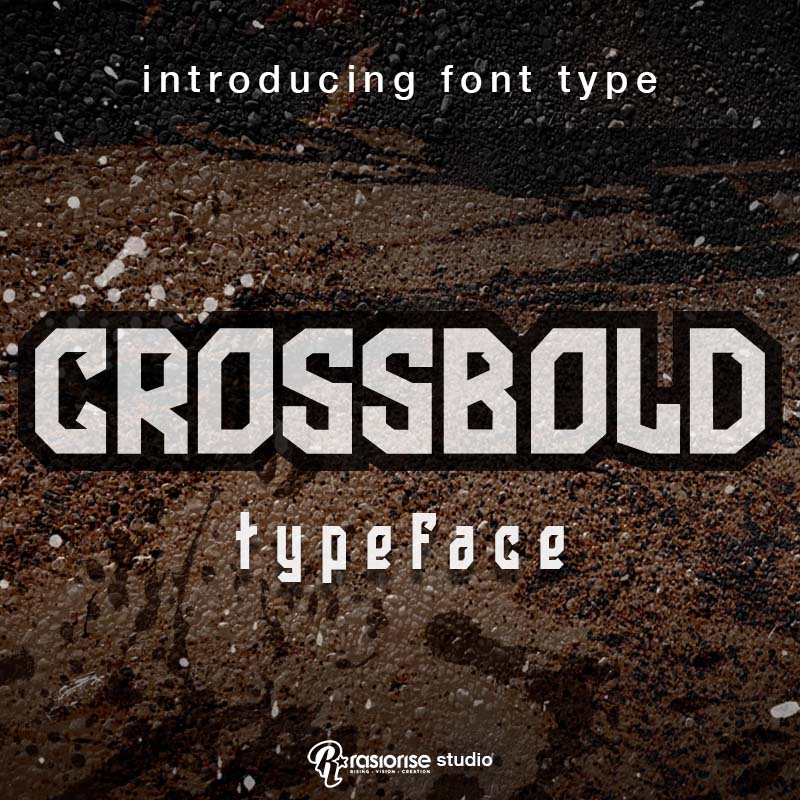
CROSSBOLD Font
Designed by
rasiorise studio
Introduction for Rasertype font is font display great for mascot design, illustration motocross and extreme sport custom font. available include Regular Type and Italic Type, uppercase and lowercase and number.